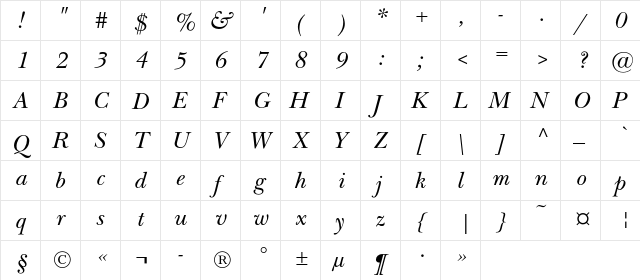
NewBaskervilleC Italic
Design Context for NewBaskervilleC Typeface
NewBaskervilleC offers clean, dependable letterforms without strong stylistic allegiance, making it a practical choice for designers who need flexibility. The slanted form adds forward momentum and visual energy.
Pro Tip: Use NewBaskervilleC for emphasis, pull quotes, and subheadings where its slanted energy can add rhythm to the layout.